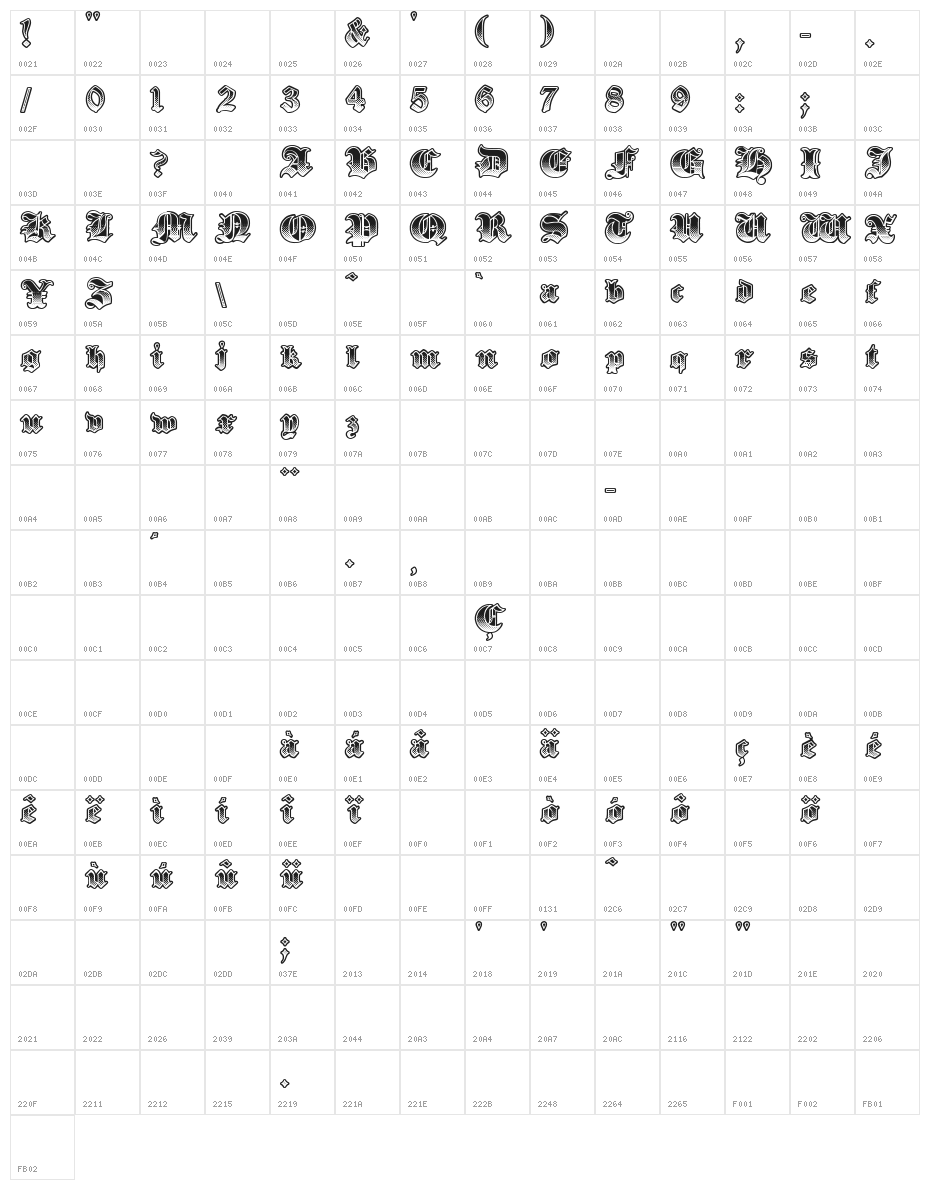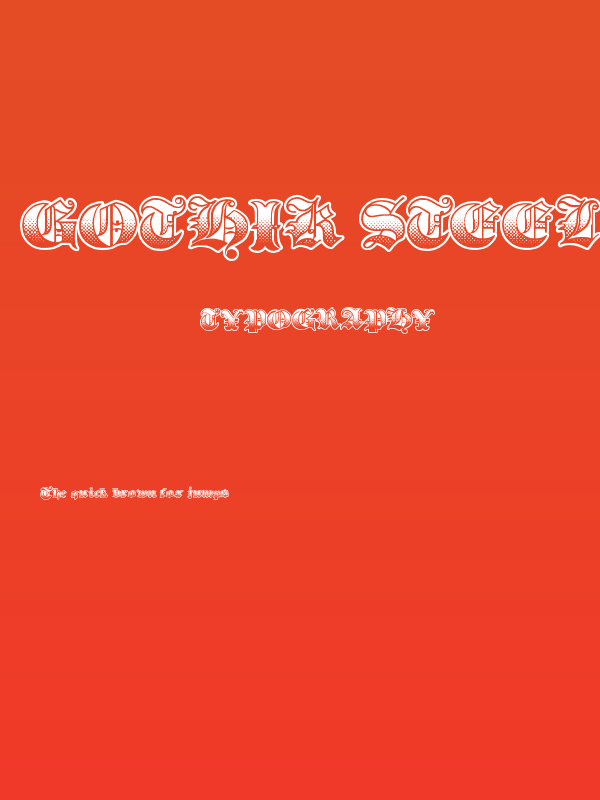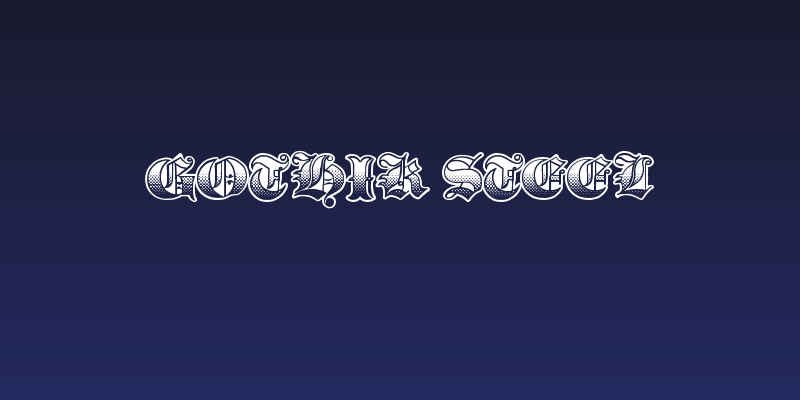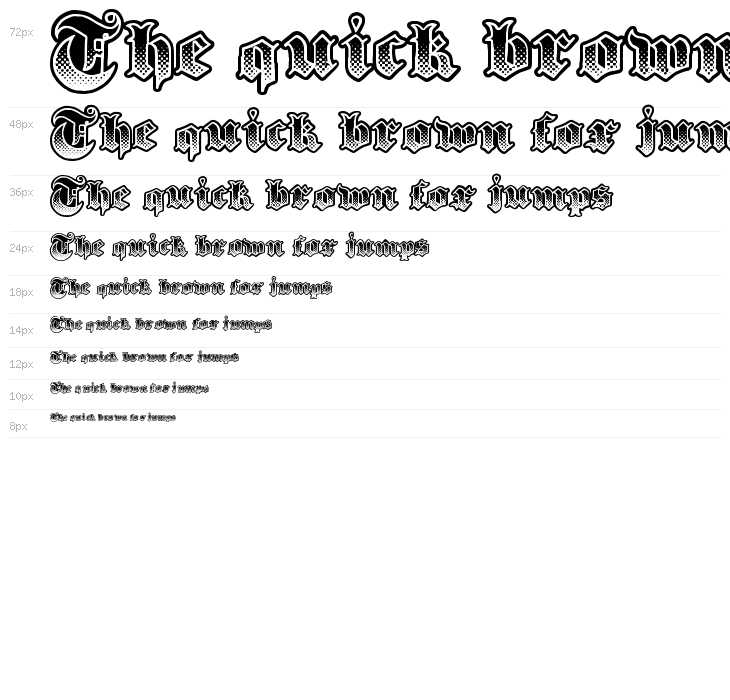
Gothik Steel Font
Gothik Steel Description
This font features a bold, intricate design reminiscent of traditional Gothic script. Each character is adorned with elaborate serifs and decorative elements, creating a sense of historical elegance. The letters are outlined with a thick border, enhancing their visibility and impact. The interior of the characters is filled with a dotted texture, adding depth and complexity. The numbers and special characters maintain the same ornate style, ensuring consistency across all elements. This font is ideal for projects that require a dramatic and vintage aesthetic.
| Proposed Projects | Ideal for vintage-themed posters, book covers, event invitations, and branding that requires a dramatic flair. |